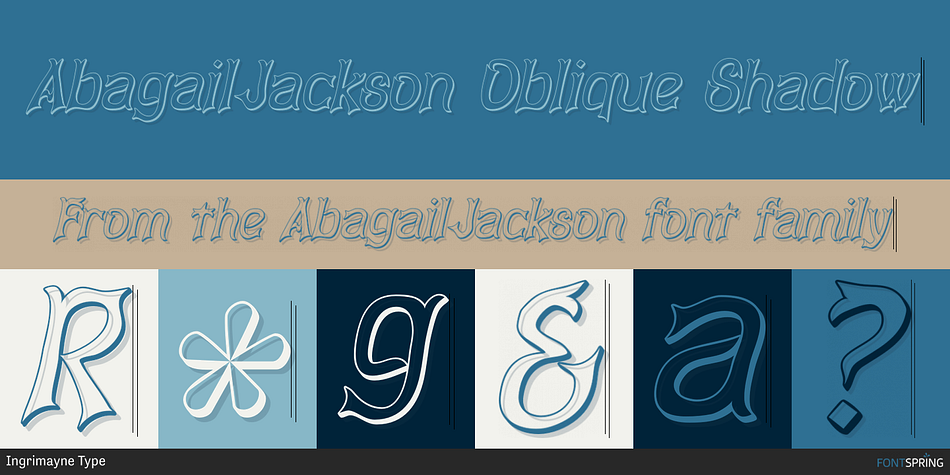
AbagailJackson Oblique Shadow
Designed by Robert Schenk, AbagailJackson is a display and hand display font family. This typeface has four styles and was published by Ingrimayne Type.
Abagail Jackson is a wild-looking face that was one of my early designs. I had no particular use in mind when I designed it and I no longer remember what inspired this whimsical font.